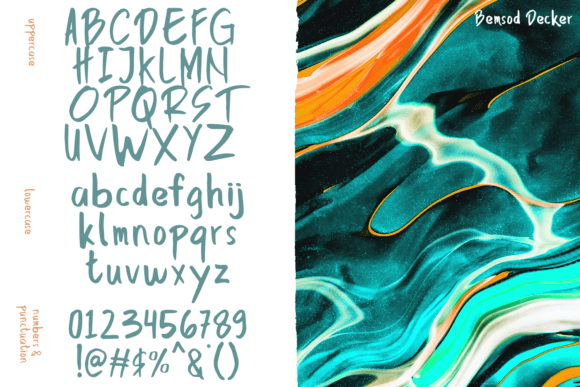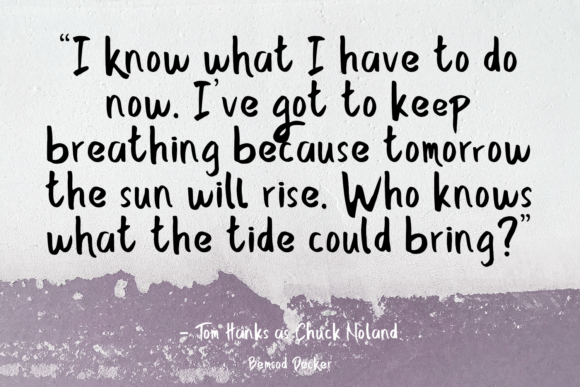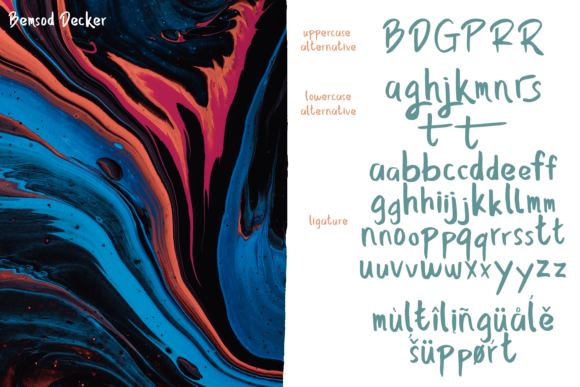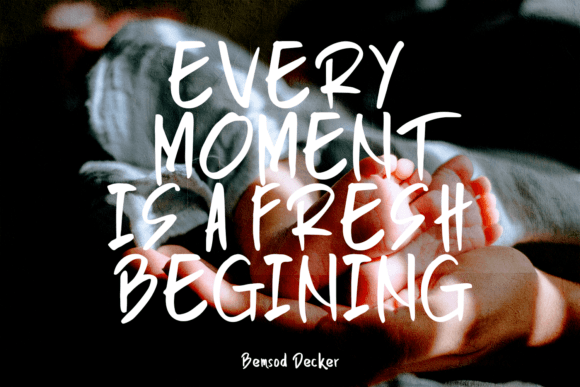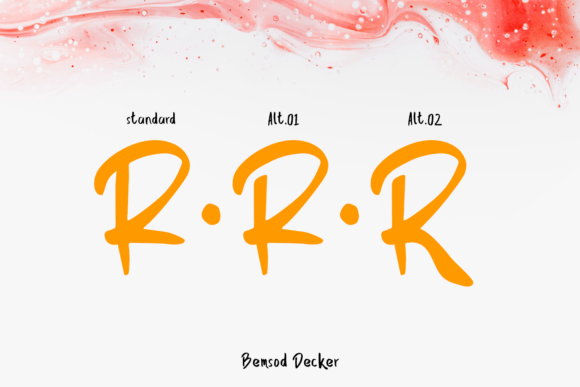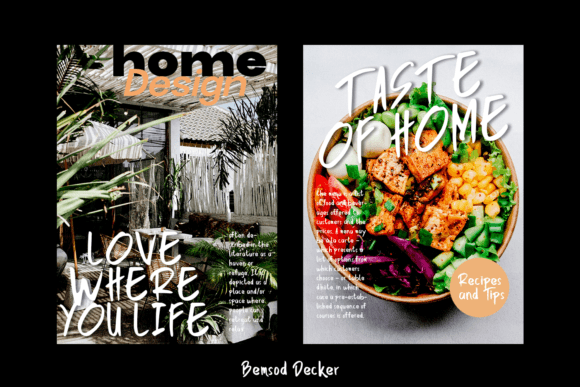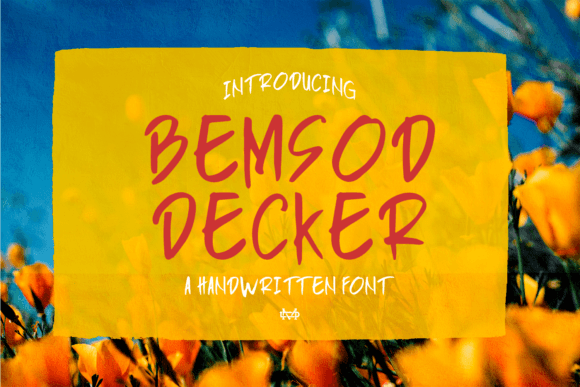
Bemsod Decker Font: The Perfect Casual Handwritten Font for Your Design Needs
Are you a designer or crafter looking for a unique and versatile font to elevate your creative projects? Look no further than the Bemsod Decker Font, a casual handwritten font that is perfect for a wide range of applications. In this article, we’ll introduce you to the Bemsod Decker Font, explore its features, and discuss how it can be used to enhance your designs.
What is Bemsod Decker Font?
Bemsod Decker is a beautiful, casual handwritten font that exudes a sense of friendliness and approachability. Its unique lettering style makes it perfect for adding a personal touch to your designs, whether you’re working on a book, title branding, product packaging, invitation, quote, label, poster, logo, or any other creative project.
Key Features of Bemsod Decker Font
So, what makes Bemsod Decker Font so special? Here are some of its key features:
- Casual and Handwritten: Bemsod Decker Font has a relaxed, handwritten feel that makes it perfect for designs that require a personal touch.
- Unique Lettering Style: The font’s unique lettering style sets it apart from other fonts, making it ideal for adding a touch of personality to your designs.
- Versatile: Bemsod Decker Font can be used for a wide range of applications, from book titles and branding to product packaging and posters.
- Easy to Read: Despite its casual nature, Bemsod Decker Font is easy to read, making it perfect for body text and captions.
Uses of Bemsod Decker Font
So, how can you use Bemsod Decker Font in your designs? Here are some ideas to get you started:
- Book Titles: Use Bemsod Decker Font to create eye-catching book titles that stand out on bookshelves.
- Branding: Add a personal touch to your brand with Bemsod Decker Font, perfect for logos, business cards, and marketing materials.
- Product Packaging: Make your product packaging stand out with Bemsod Decker Font, ideal for labels, tags, and packaging inserts.
- Invitations: Create beautiful, handwritten invitations for weddings, parties, and other special events.
- Posters and Flyers: Use Bemsod Decker Font to create eye-catching posters and flyers that grab attention.
Tips for Using Bemsod Decker Font
Here are some tips for getting the most out of Bemsod Decker Font:
- Experiment with Colors: Bemsod Decker Font looks great in a variety of colors, so don’t be afraid to experiment and find the perfect hue for your design.
- Mix and Match: Combine Bemsod Decker Font with other fonts to create a unique and visually appealing design.
- Pay Attention to Spacing: Make sure to adjust the spacing between letters and words to ensure your text is easy to read.
In conclusion, Bemsod Decker Font is a versatile and beautiful casual handwritten font that is perfect for a wide range of design applications. Its unique lettering style, ease of use, and versatility make it an ideal choice for designers and crafters looking to add a personal touch to their creations. Whether you’re working on a book, branding, product packaging, or any other design project, Bemsod Decker Font is sure to impress.